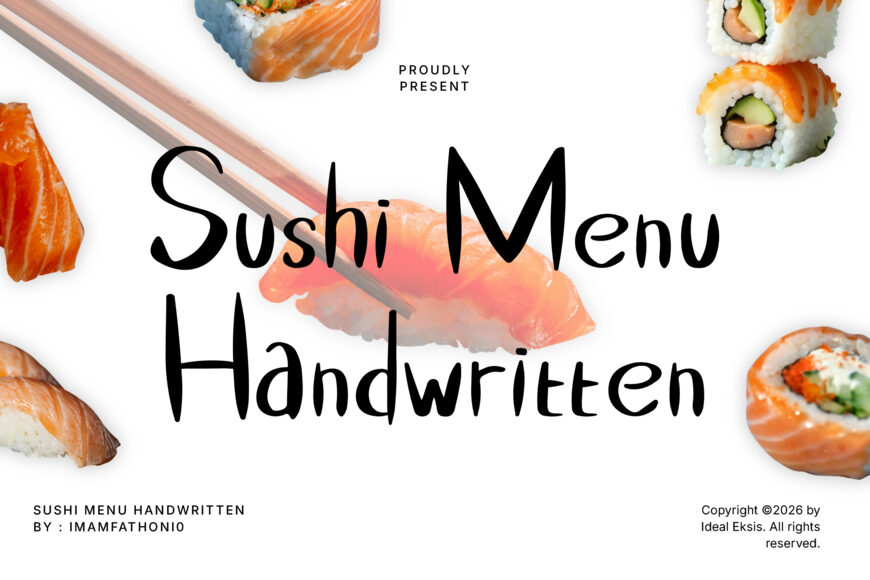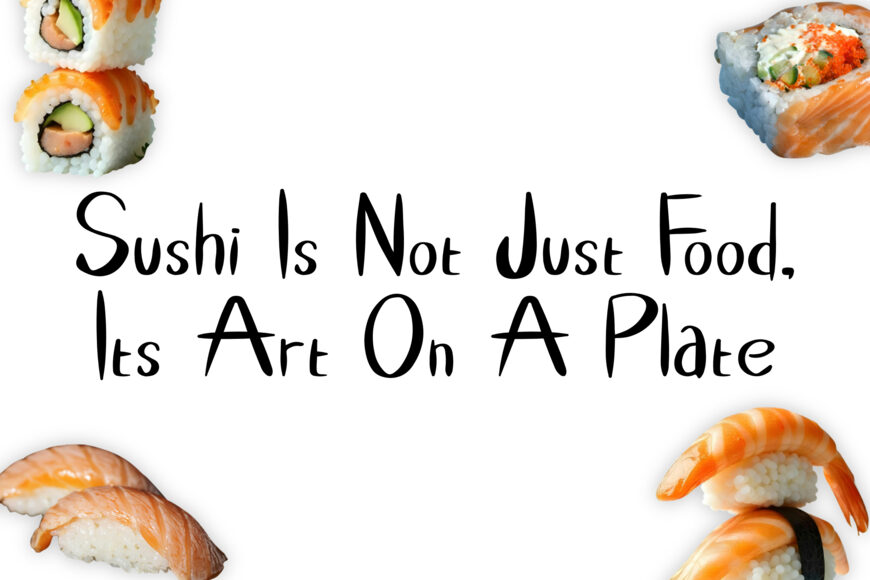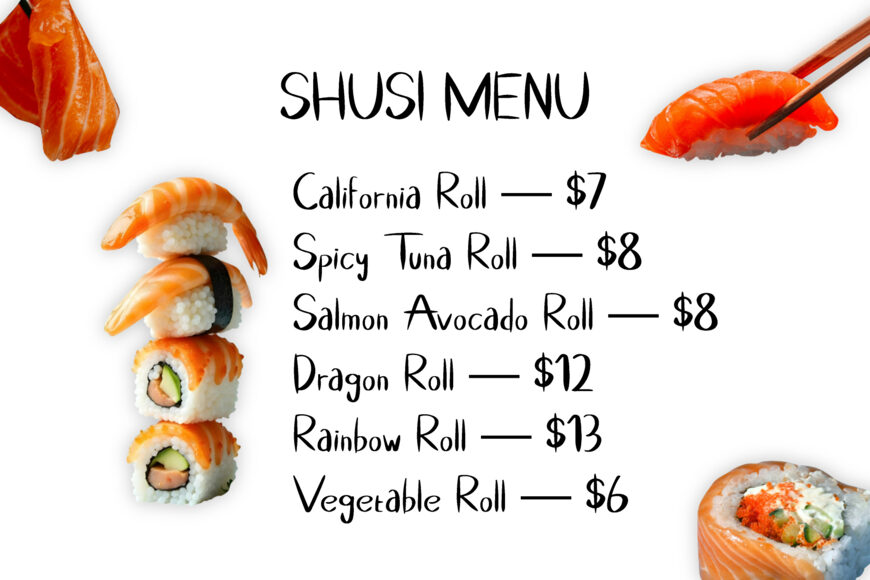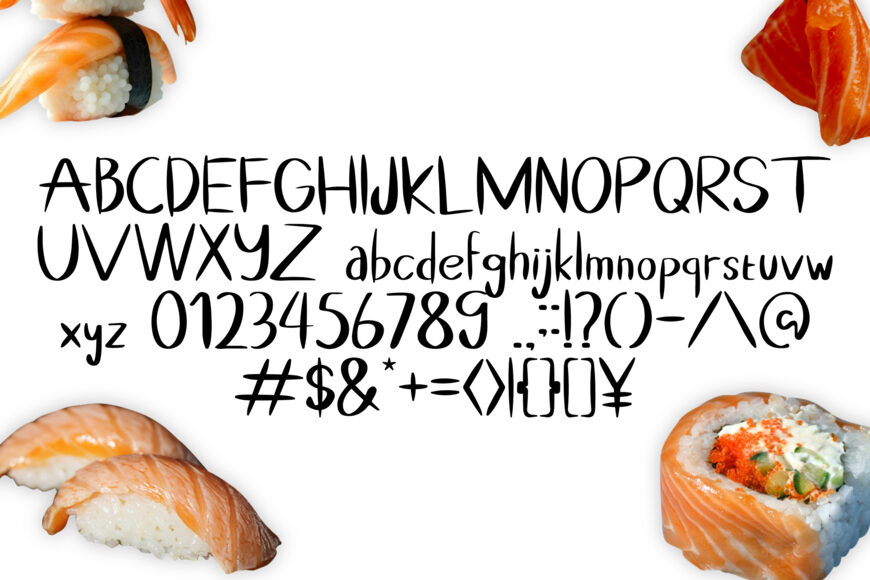
Serve up fresh organic style, Japanese-inspired brush elegance, and authentic hand-painted personality with Sushi Menu Handwritten!
Designed as an expressive Asian-style handwritten display font, each character features dynamic brush strokes, tall natural letter stems, and a subtle calligraphic sweep. Its clean yet handcrafted aesthetic brings an inviting, authentic culinary touch to restaurant menus, branding, and food packaging.